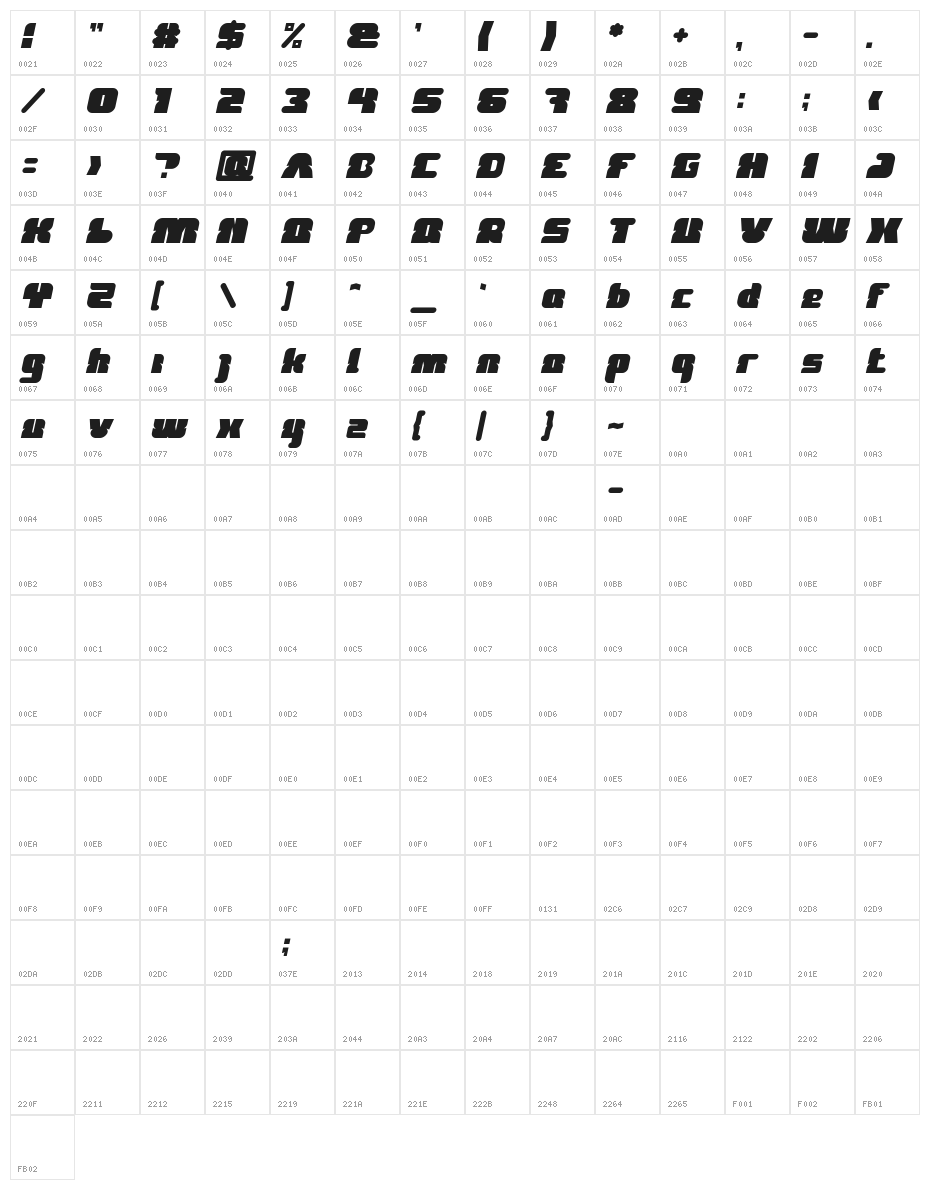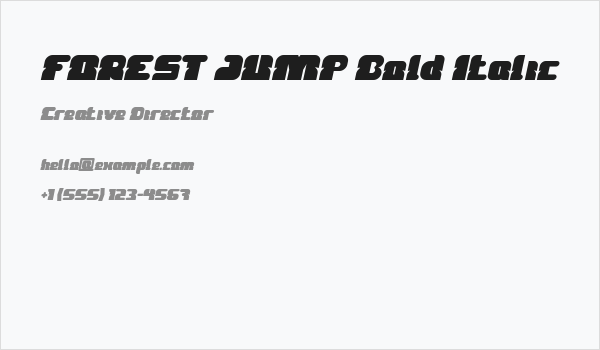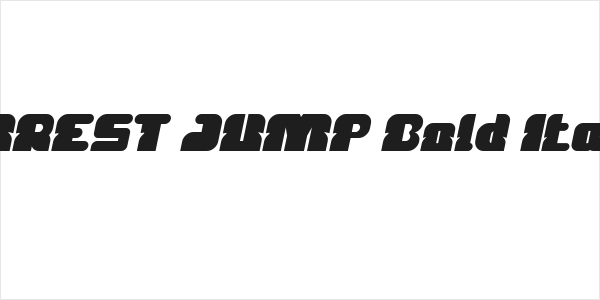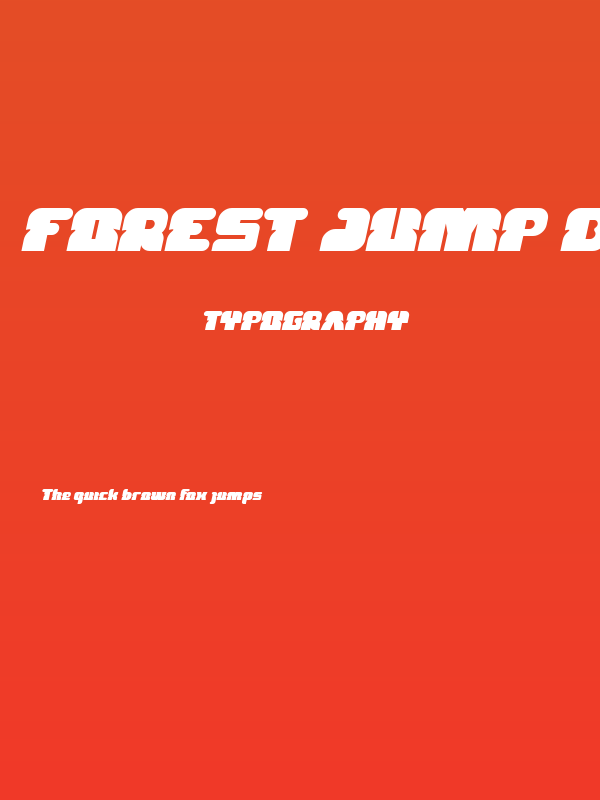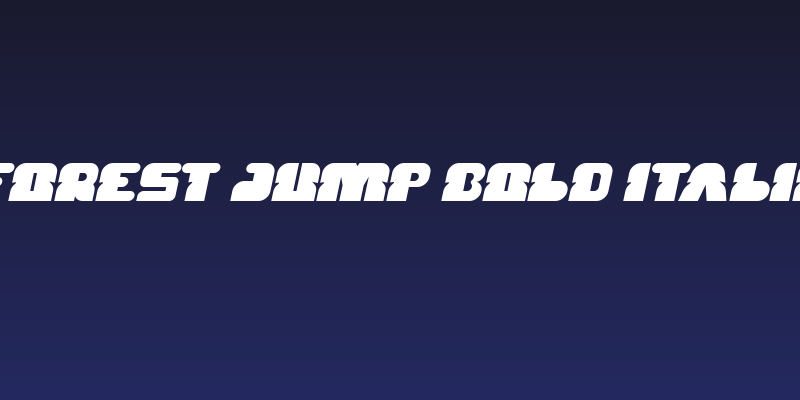
FOREST JUMP Bold Italic Font
FOREST JUMP Bold Italic Description
This bold and italic font features a unique, dynamic style with thick, rounded strokes that convey a sense of movement and energy. The letters are heavily slanted, adding to the italicized effect, while maintaining a consistent weight throughout. The characters are tightly spaced, enhancing the bold appearance and making it ideal for impactful designs. The numbers and special characters follow the same stylistic cues, ensuring uniformity across all elements. Its distinctive look makes it suitable for projects that require a strong visual presence.
| Proposed Projects | Ideal for sports branding, dynamic posters, eye-catching headlines, and modern logos. |